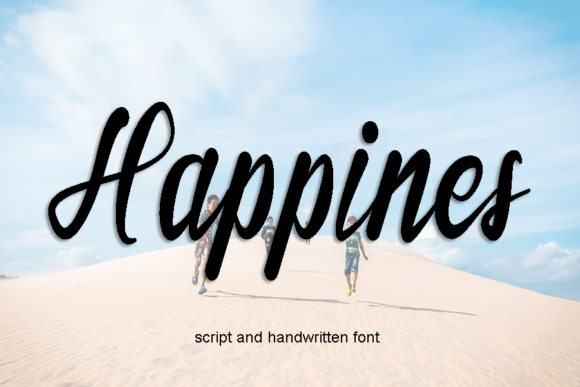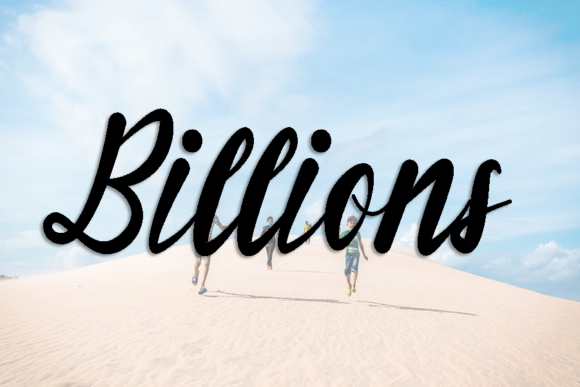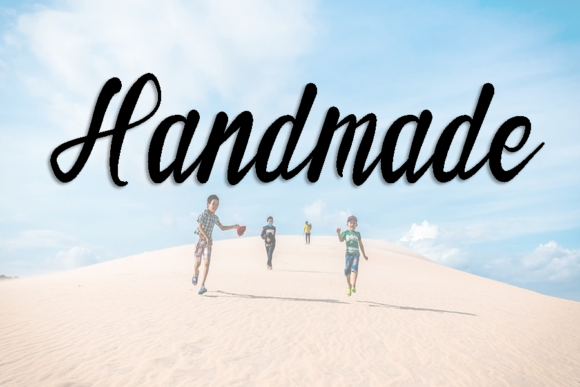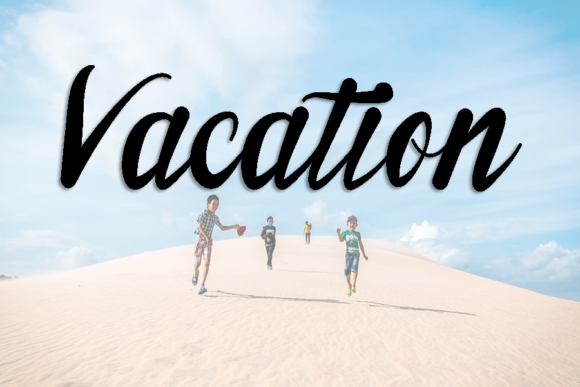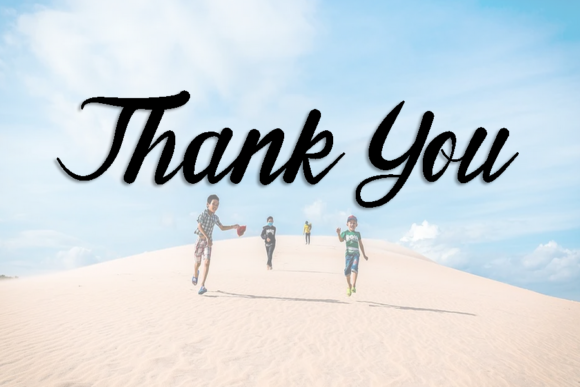
Happiness Font
About Happiness Font
“Happiness” is a calligraphy typeface that embodies the essence of romance and sweetness. With its characters gracefully dancing along the baseline, this font brings a touch of whimsy and elegance to any design project, infusing it with a luxurious and enchanting aura.
Imagine using “Happiness” for a line of luxury chocolates or confections. The font’s flowing and delicate strokes mirror the decadent swirls of chocolate, creating an irresistible visual appeal that draws customers in. The playful dance of characters along the baseline adds a sense of joy and excitement, making each treat feel like a special indulgence.
For wedding invitations, “Happiness” sets the perfect tone for a romantic and dreamy celebration. The font’s calligraphic style evokes the artistry of handwritten love letters, adding a personal and intimate touch to the invitation. As guests read the elegant script, they can almost feel the love and happiness that the couple shares.
In branding, “Happiness” can transform a product line into a delightful experience. Picture a line of scented candles with the font’s script gracing the labels. The dancing characters along the baseline mirror the flickering flame of a candle, creating a sensory and visual harmony that resonates with customers seeking moments of relaxation and bliss.
Whether it’s used for packaging, logos, or social media graphics, “Happiness” infuses a sense of luxury and enchantment into every design it touches. The font’s unique style captivates the viewer and elevates the overall aesthetic, making it an ideal choice for any project where you want to create a feeling of joy, elegance, and sophistication.